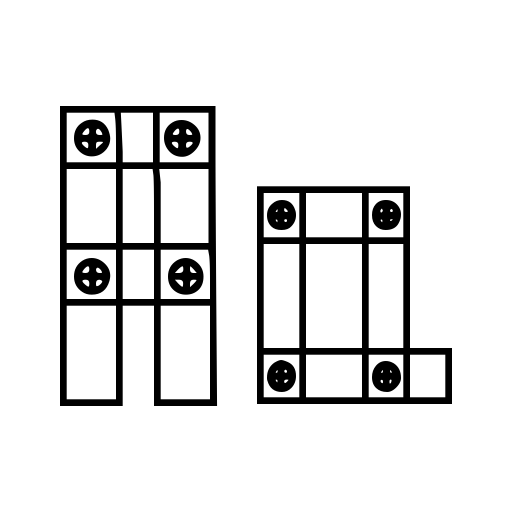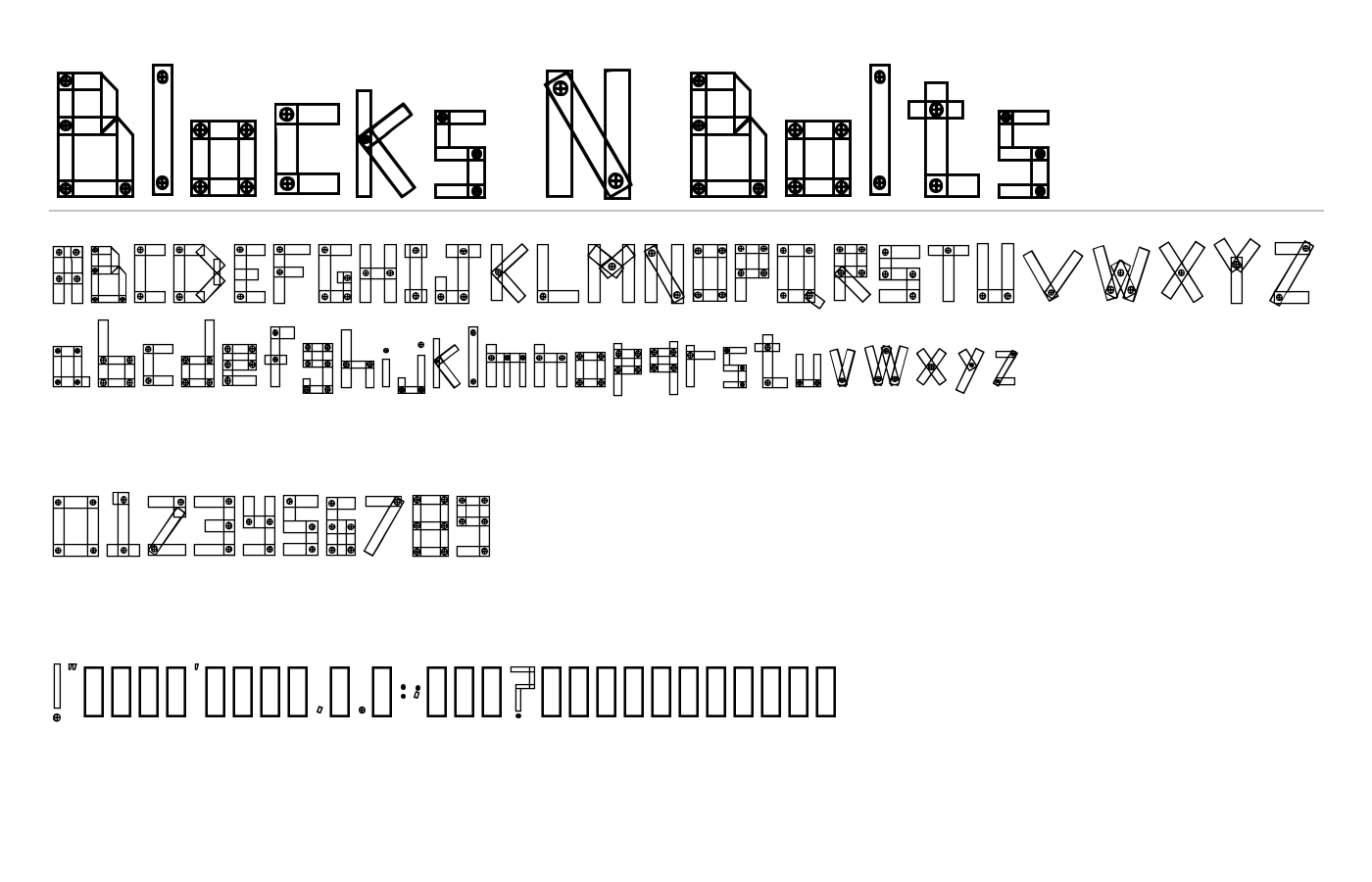
Blocks N Bolts is a playful and industrial-inspired display font featuring modular, blocky letterforms connected by bolt-like details, giving it a mechanical, constructed feel. Its outlined strokes and unique construction elements make it perfect for creative, eye-catching headlines and branding in industries related to engineering, technology, or DIY crafts where a bold, quirky personality is desired. This font stands out best in large sizes and projects that benefit from a fun, inventive, and technical aesthetic.
Blocks N Bolts Font
About Blocks N Bolts Font